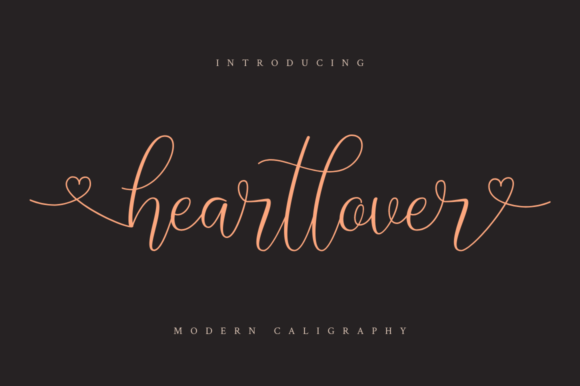
Embark on a romantic journey with Heartlover, a captivating calligraphy font that exudes warmth and charm. Its graceful curves and flowing lines add a touch of elegance to any design, making it the perfect choice for creating heartfelt messages and stunning visual masterpieces.
Step into a world of creativity, where your imagination knows no bounds. Heartlover's versatility shines through in its ability to transform ordinary words into breathtaking art. Whether you're crafting enchanting wedding invitations, heartfelt stationary art, or eye-catching social media posts, this font will elevate your designs and leave a lasting impression.
With Heartlover, the possibilities are endless. Its carefully crafted swashes and ligatures dance across the page, adding a touch of whimsy and sophistication to your projects. Fall in love with its authentic feel and let your creativity soar.
Unleash the cuteness overload with Heartlover. Its adorable glyphs and swashes bring a smile to the face and add a touch of charm to your designs. Create cute greeting cards that warm the hearts of your loved ones or design enchanting posters that capture the imagination of children.
Heartlover is more than just a font; it's an expression of your creativity and a testament to your impeccable taste. Its PUA encoding ensures ease of use, allowing you to effortlessly access all of its charming features. Experience the joy of creating with Heartlover and let your designs bloom with beauty and elegance.
Indulge in the beauty of Heartlover today and embark on a creative journey like no other. Let your imagination run wild as you explore the endless possibilities this font has to offer. Make a statement, spread love, and create memories that will last a lifetime with Heartlover.